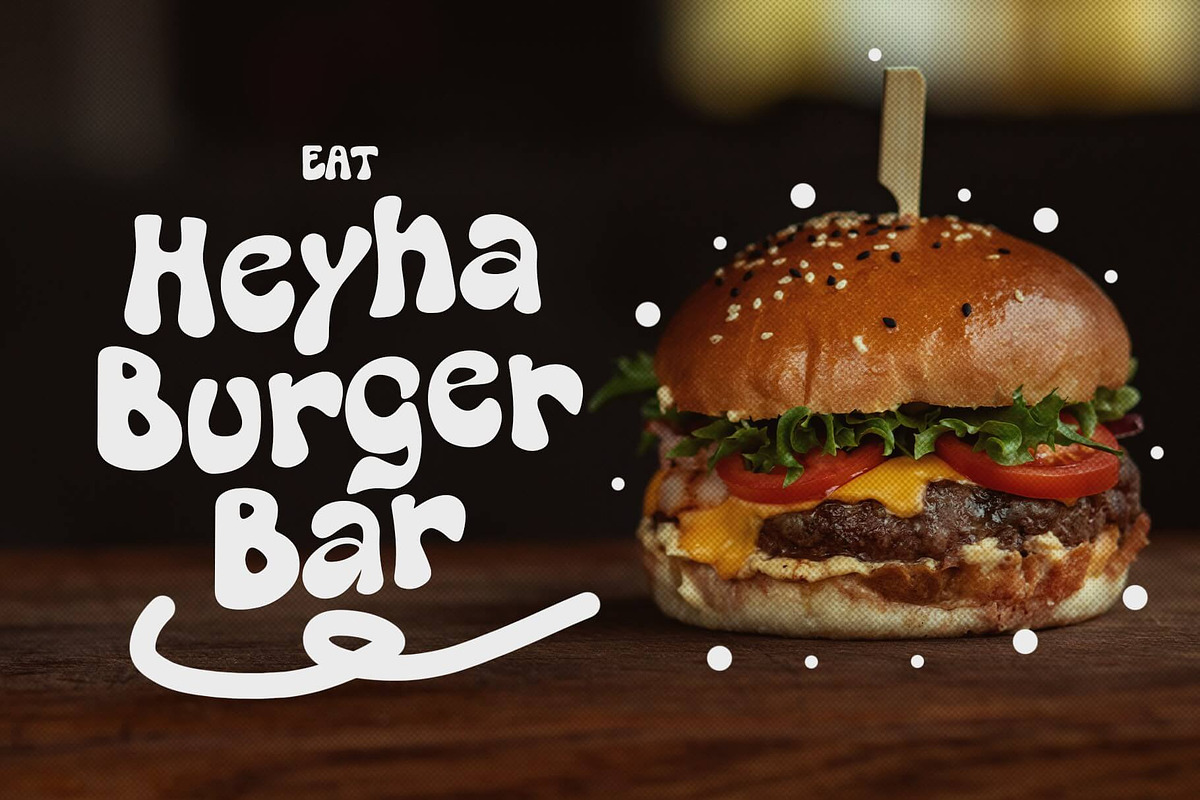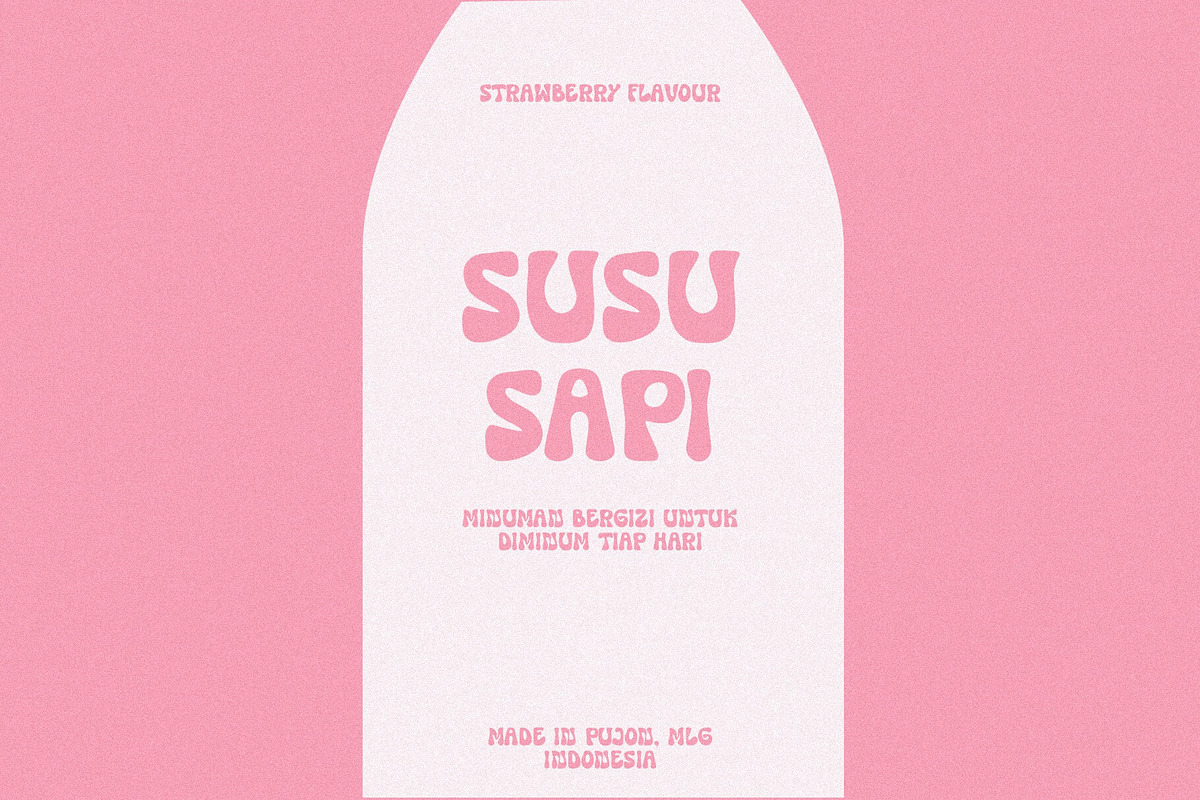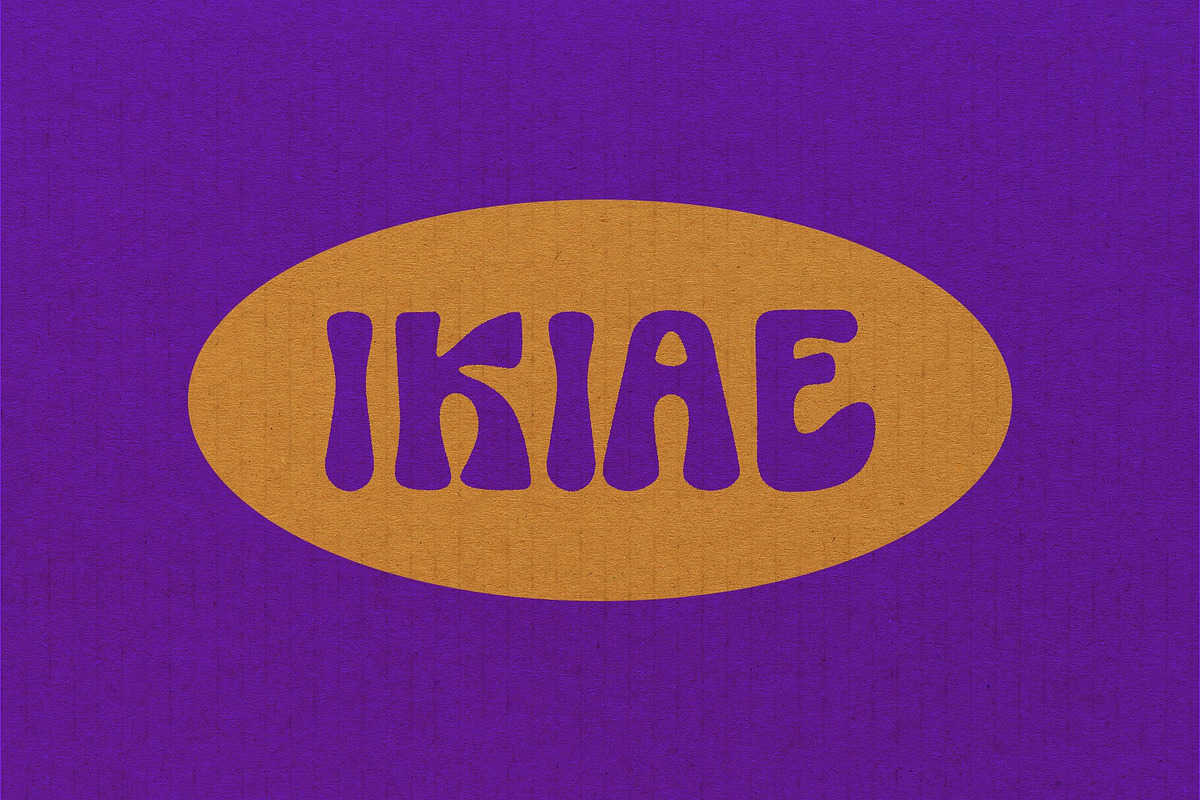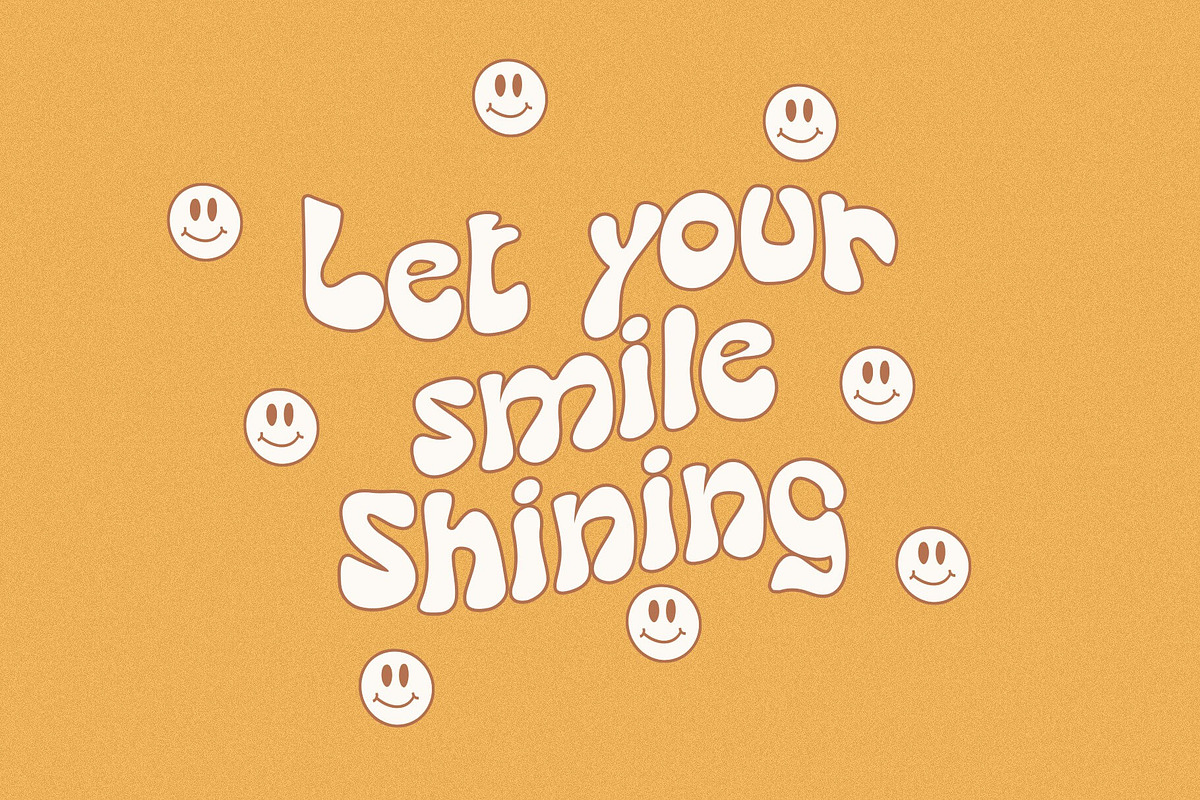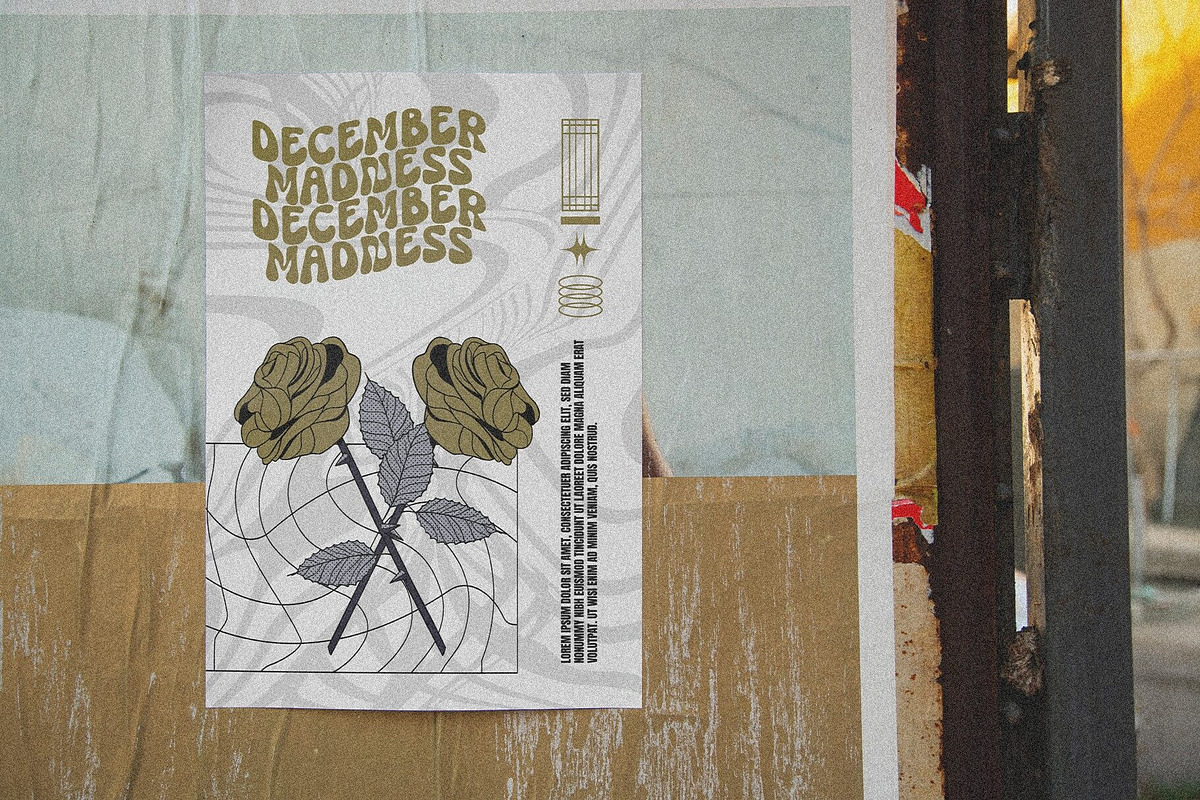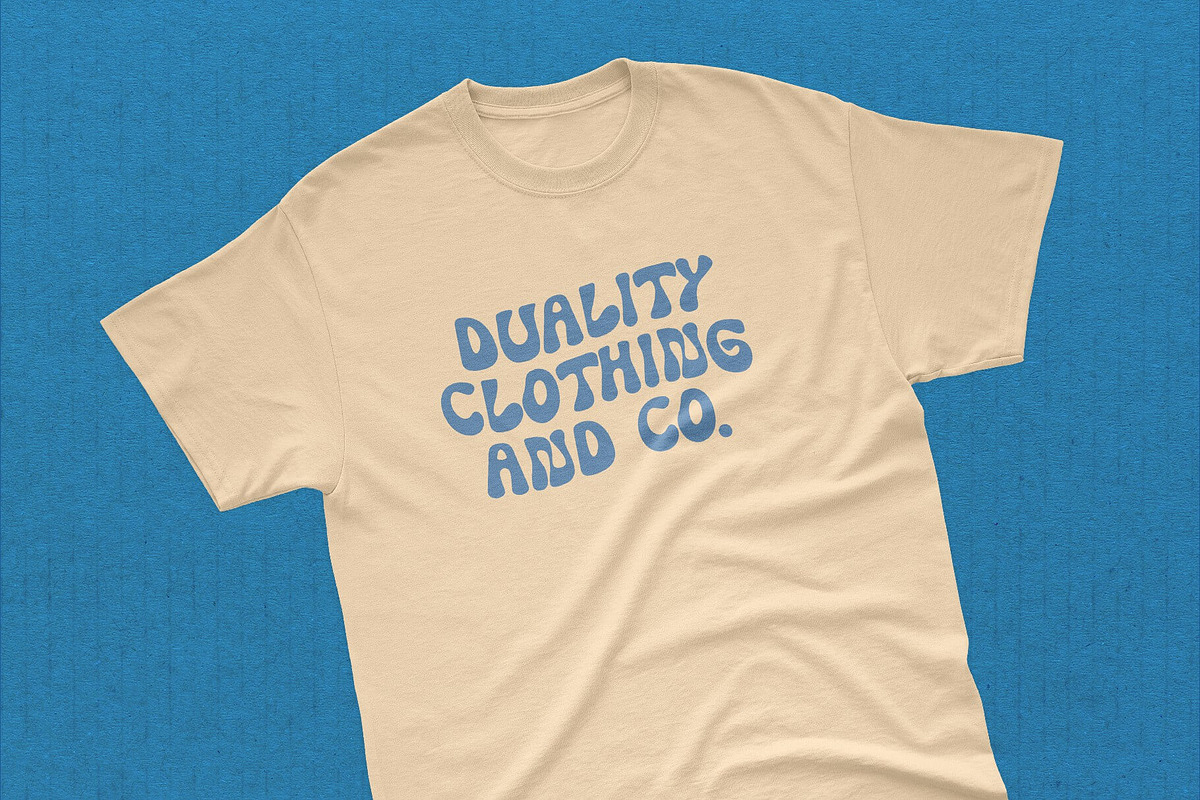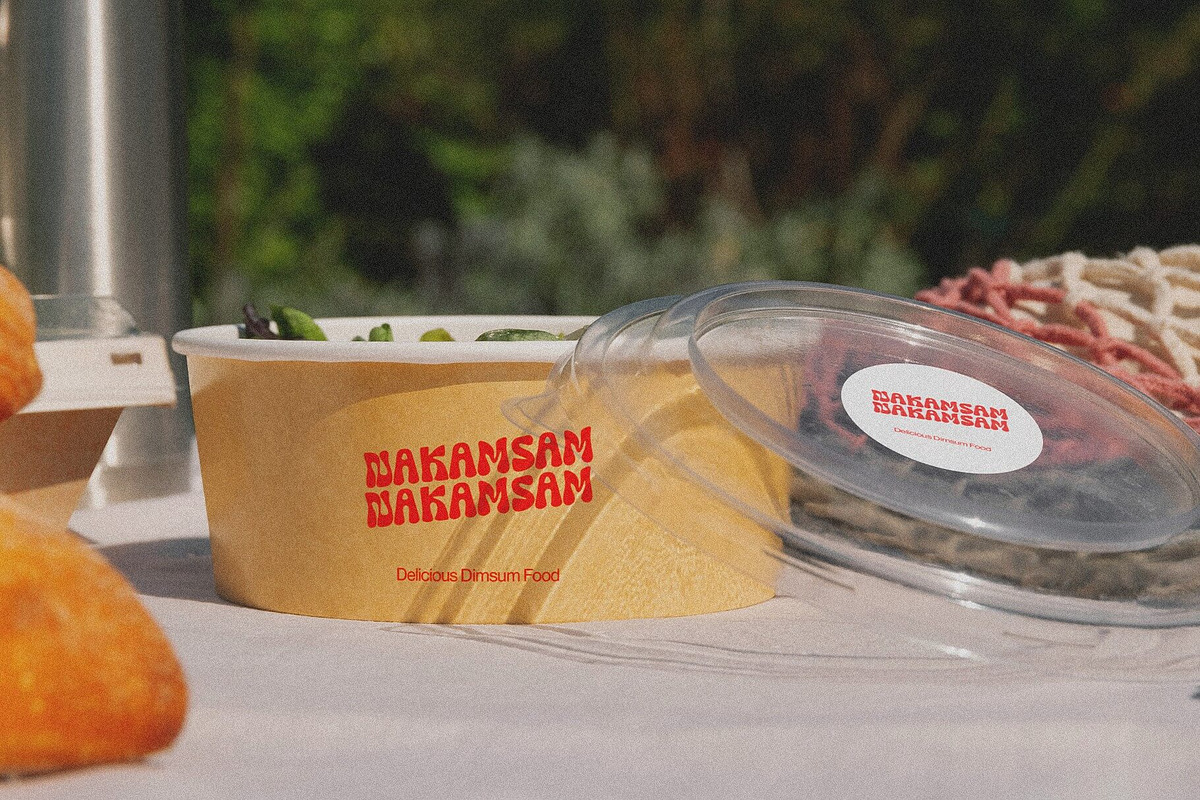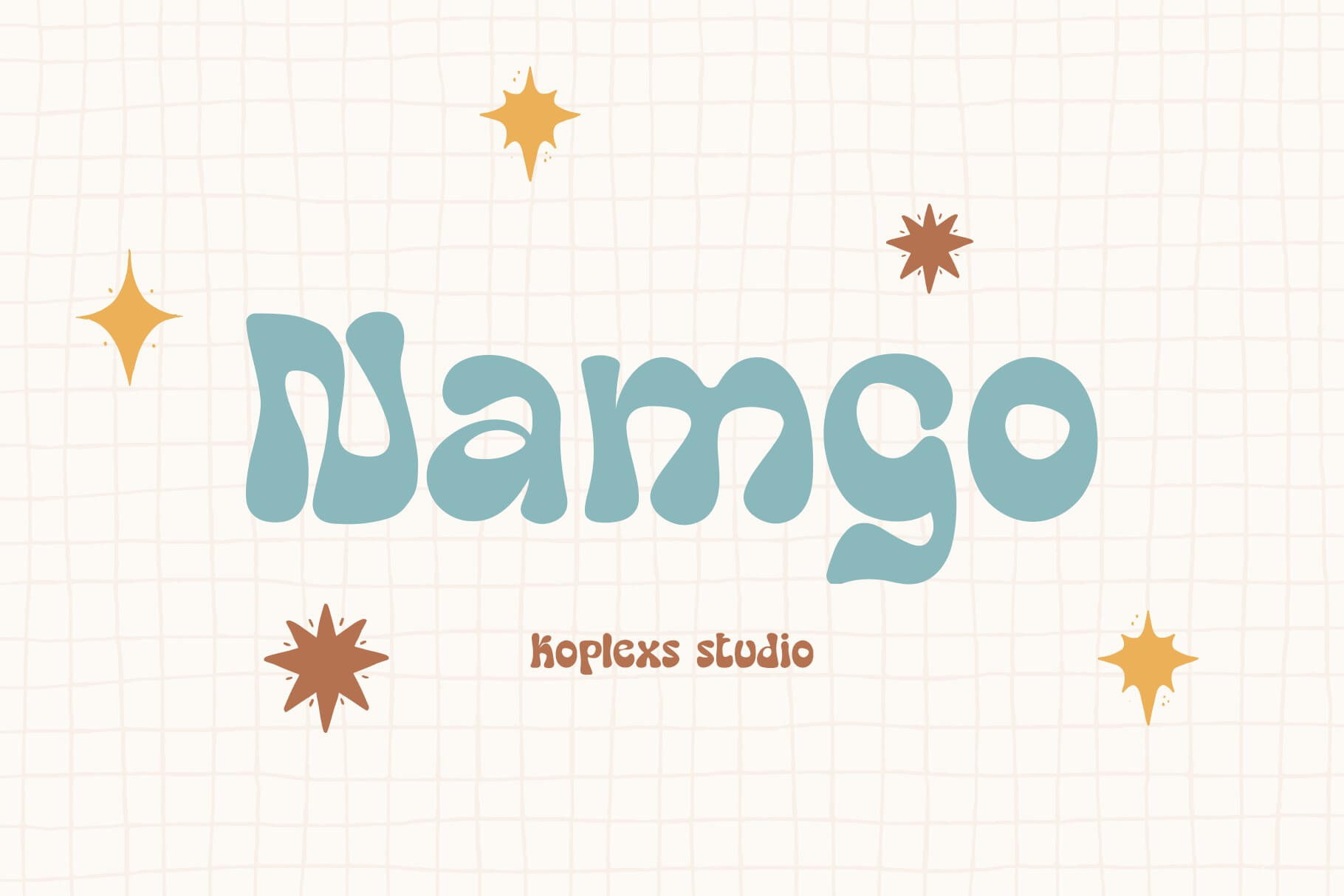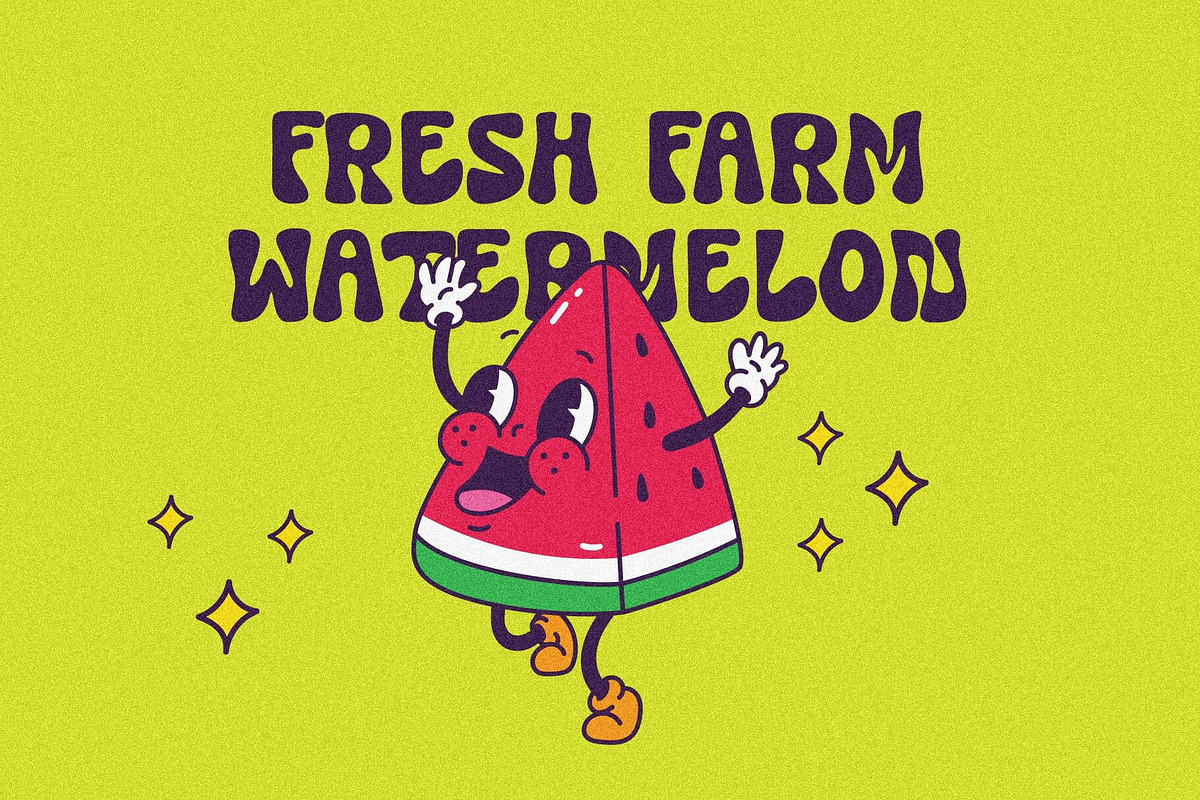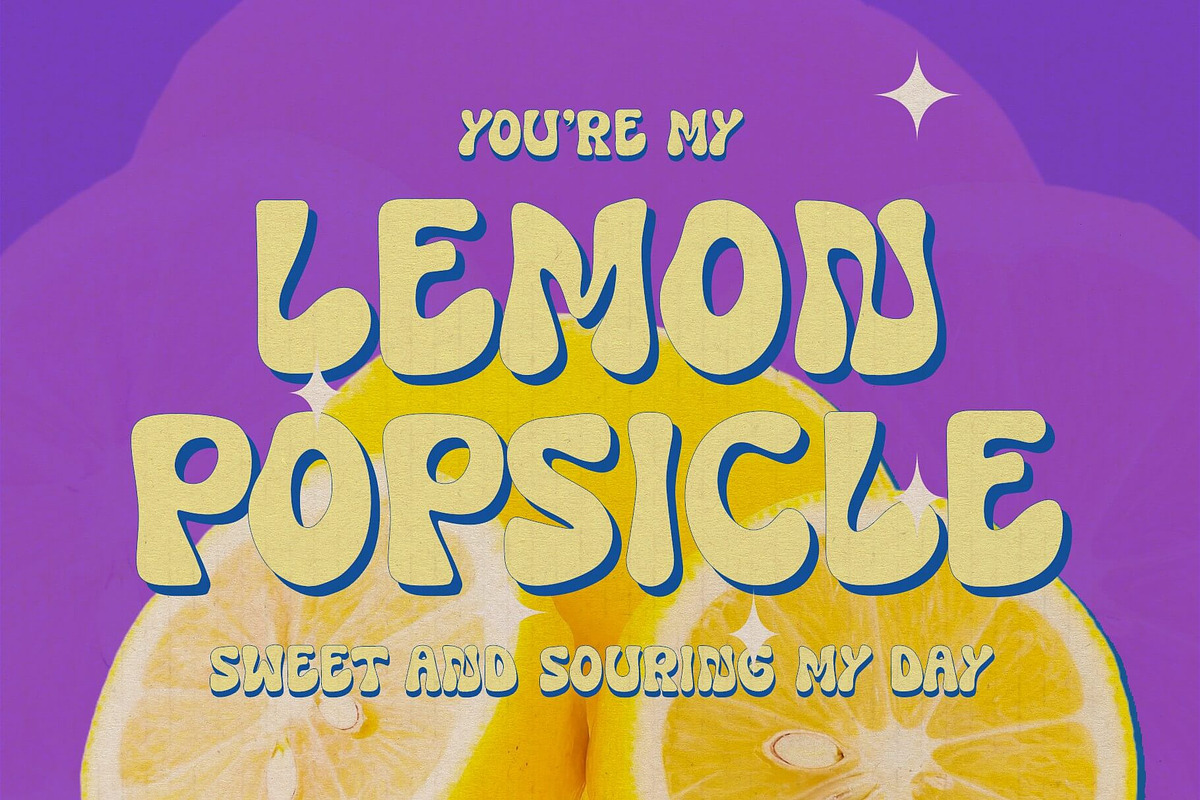
Namgo - Groovy Font
Namgo is the perfect font for those seeking a unique and classy typeface. Inspired by retro fonts from the 60s, 70s, 80s, and 90s, Namgo brings a distinctive groovy vibe to every letter. This font features a blend of cursive and handwritten styles, making it both fancy and playful. Whether you're working on a creative project, designing memes, or looking for the perfect font for Cricut, Namgo is the ideal choice. Discover the perfection in every stroke with this font that combines cool texts, funky fonts, and wavy styles. Namgo also offers a classy and special look, making it one of the best fonts for all your design needs.